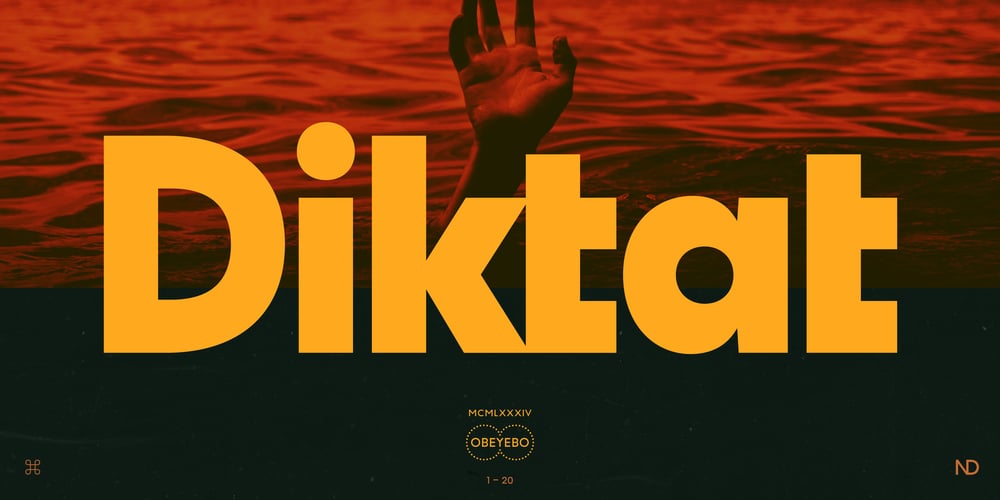
ND Diktat
ND Diktat font
ND Diktat Font Family was designed by Wolf Boese and published by NeueDeutsche. ND Diktat contains 11 styles and family package options. Introducing a bold and uncompromising sans-serif font that refuses to bend or sway. Its angular curves and sharp corners give it an air of authority and strength, while its bold weight demands attention and respect. This font is perfect for designs that require an unyielding, no-nonsense attitude. With its right angles and minimal curves, it embodies a stark and severe aesthetic that leaves no room for ambiguity or indecision. Its austere personality is sure to make a lasting impression, making it the perfect choice for projects that demand an authoritative and uncompromising presence.